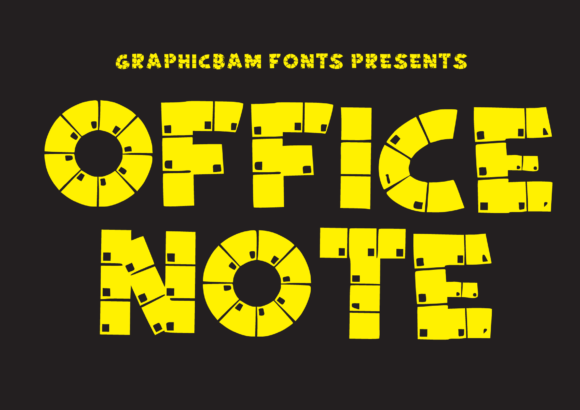
In the realm of typography, we introduce the Office Note Font, a trailblazing display font that ignites creativity with its bold and thick letterforms. This masterpiece is a stroke of genius crafted by the esteemed GraphicsBam Fonts, renowned for their dedication to crafting typographic wonders.
Welcome to the world of Office Note Font, where the boundaries of design are transcended. This extraordinary font is an artistic gateway to boundless creativity, inviting you to explore new horizons in graphic design. Whether you're crafting a captivating flyer, designing an eye-catching poster, or creating an unforgettable logo, Office Note Font is your steadfast companion.
Feast your eyes on the masterful strokes of Office Note Font, a display font that commands attention with its bold presence. Each letter is meticulously designed to evoke a sense of power and authority, leaving a lasting impression on your audience. Let your designs resonate with confidence and sophistication as you harness the strength of this remarkable font.
Step into the spotlight with Office Note Font and unveil the transformative power of typography. Allow your creativity to flourish as you discover a font that not only elevates your designs but also captivates your audience. Unleash your imagination and embark on a journey of visual storytelling, leaving your mark on the world of design.